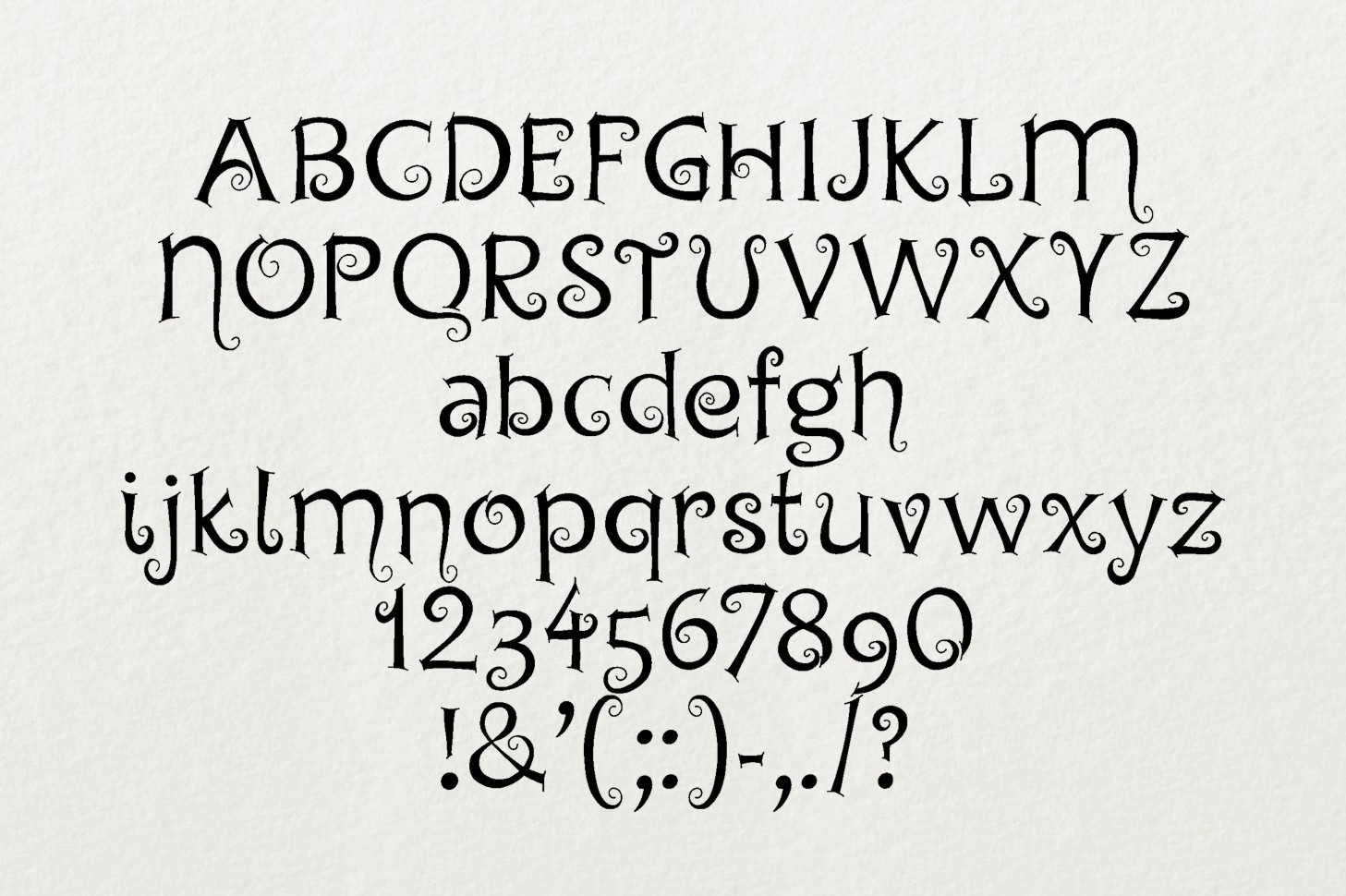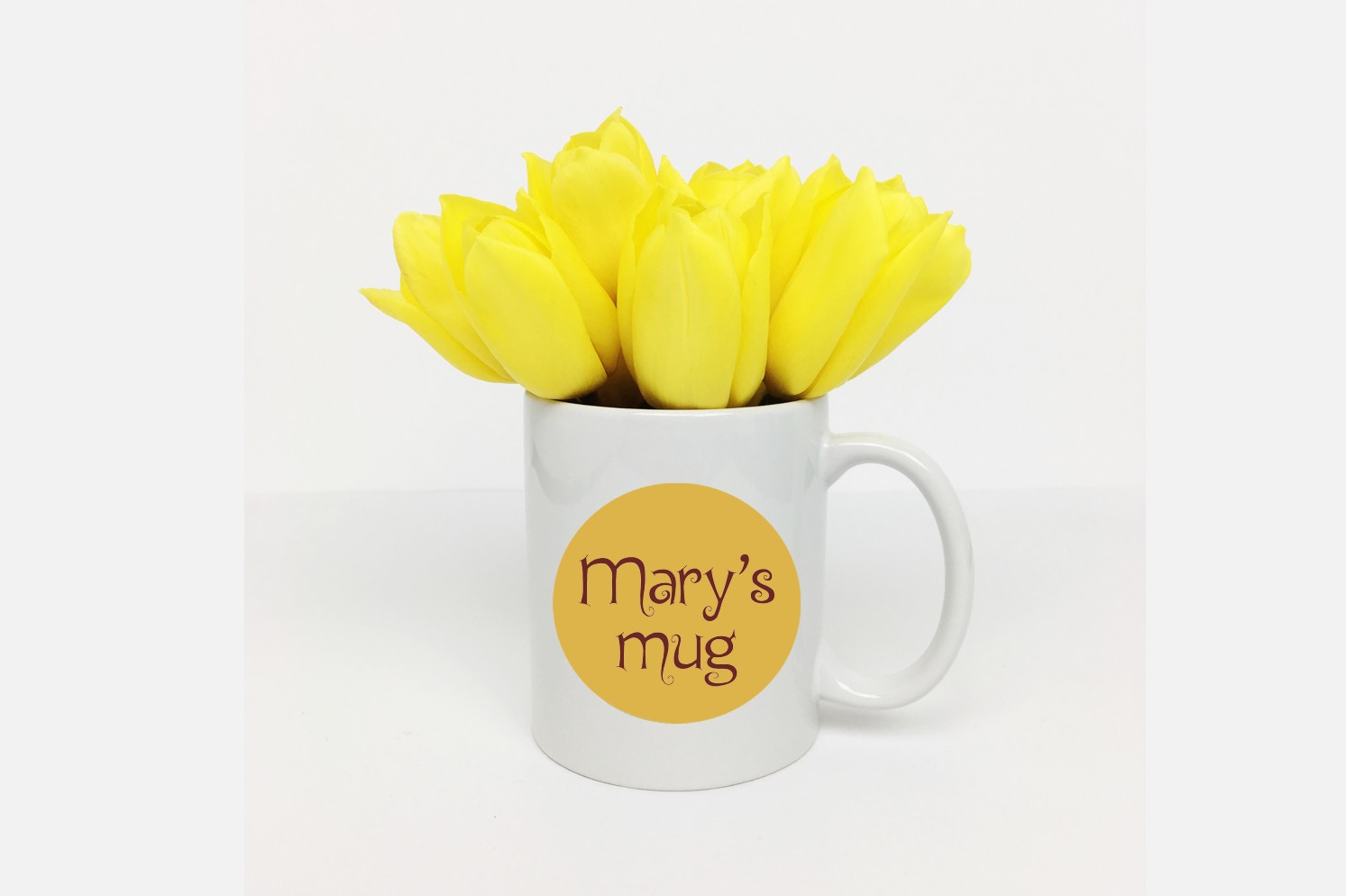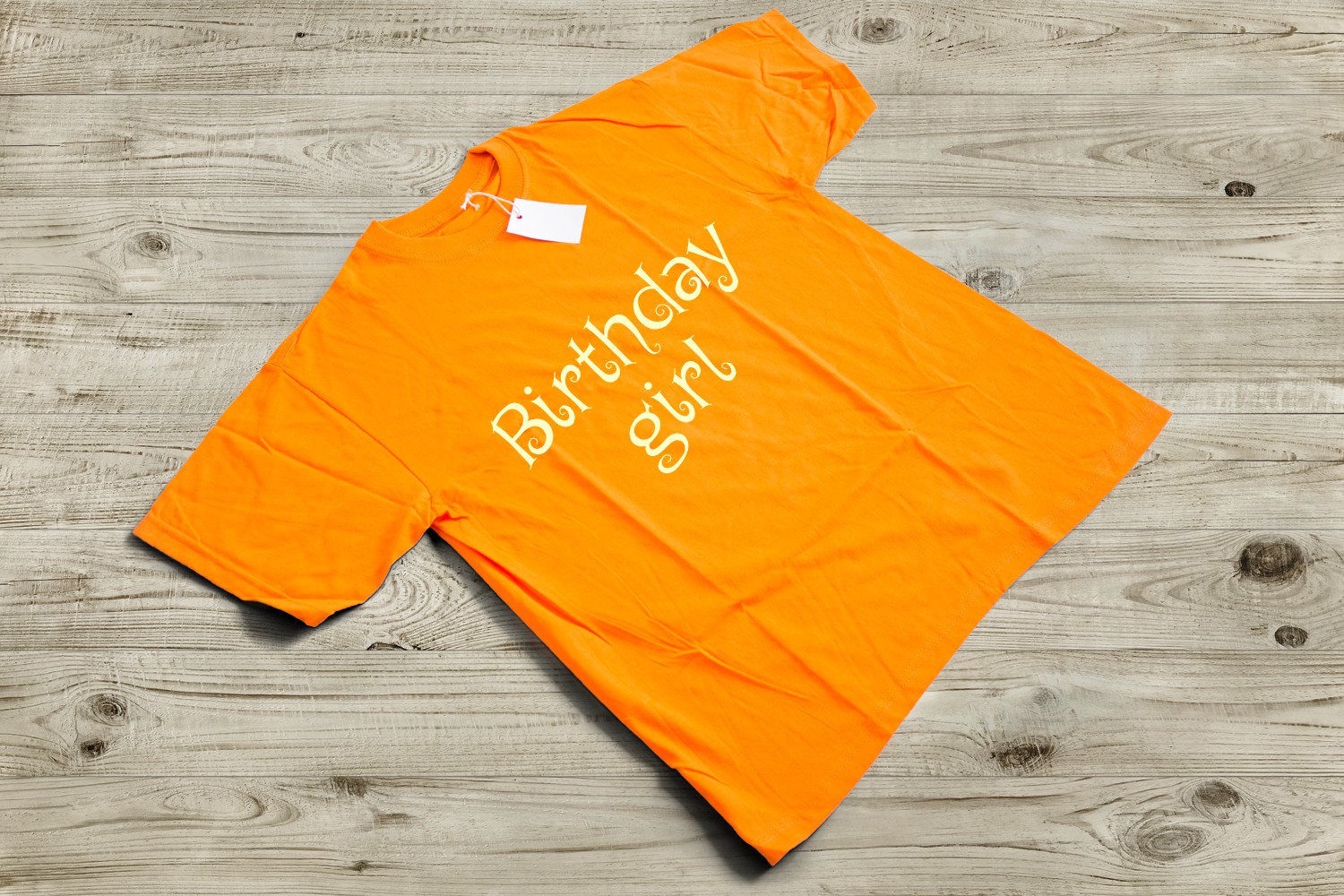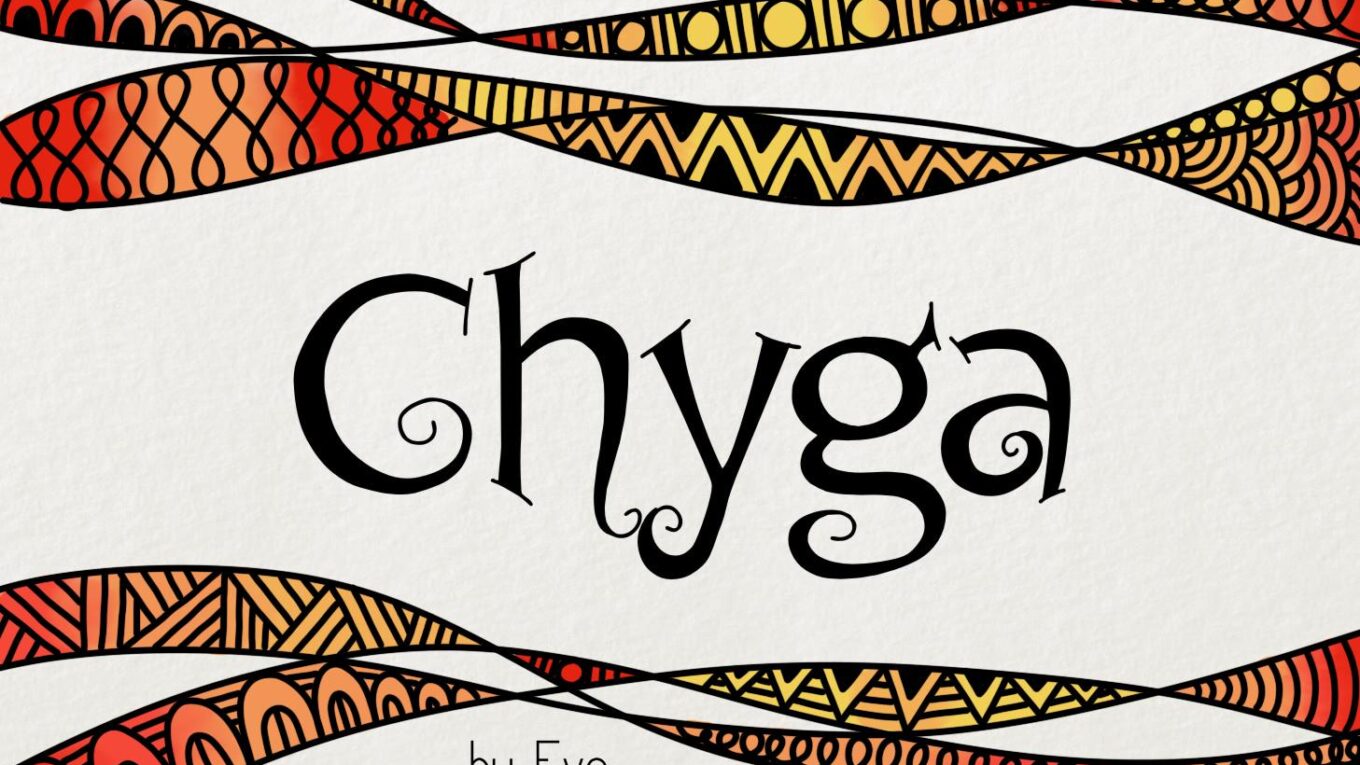
Discover the Unique Charm of Chyga Font: A Humanist Serif Wonder
In the world of typography, fonts play a crucial role in bringing designs to life. For designers and crafters, finding the perfect font that combines elegance, uniqueness, and versatility can be a daunting task. However, if you’re on the hunt for a typeface that can add a touch of sophistication and personality to your projects, look no further than Chyga Font. This humanist serif font is making waves in the design community, and for good reason.
What Makes Chyga Font Stand Out?
Chyga Font is a variable and kind-looking typeface that boasts a wonderful humanist serif design. What sets it apart from other fonts is its distinctive merged curls, which are seamlessly integrated with a classic appeal. This unique combination gives Chyga a one-of-a-kind look that can instantly elevate your designs. Whether you’re working on a branding project, a website, or a craft project, Chyga is an excellent choice.
The Power of Humanist Serif Fonts
Humanist serif fonts are known for their elegant and refined appearance. They are inspired by traditional calligraphy and are characterized by their classic, timeless look. These fonts are perfect for designs that require a touch of sophistication and luxury. Chyga Font takes this classic style and adds a modern twist with its merged curls, making it a versatile option for a wide range of designs.
The Benefits of Using Chyga Font
So, what makes Chyga Font an excellent choice for designers and crafters? Here are just a few benefits of using this wonderful typeface:
- Unique and distinctive look: Chyga’s merged curls and classic appeal make it stand out from other fonts.
- Versatile: This font is suitable for a variety of designs, from branding and websites to craft projects and more.
- Elegant and refined: Chyga’s humanist serif design gives it a sophisticated and luxurious look.
- Easy to read: The font’s clear and classic design makes it easy to read, even at small sizes.
How to Use Chyga Font in Your Designs
Chyga Font is a great handwritten option for a variety of designs. Here are a few ideas to get you started:
- Branding and logos: Use Chyga to create a unique and memorable brand identity.
- Web design: Add a touch of elegance to your website with Chyga’s refined design.
- Craft projects: Use Chyga to add a personal touch to your craft projects, such as handmade cards and invitations.
- Print design: Chyga is perfect for print designs, such as brochures, flyers, and posters.
In conclusion, Chyga Font is a wonderful humanist serif font that can add a touch of elegance and uniqueness to your designs. Its merged curls and classic appeal make it a standout typeface that is sure to impress. Whether you’re a designer or a crafter, Chyga is an excellent choice for a wide range of projects. So why not give it a try and see how it can elevate your designs?
With its versatility, elegance, and unique design, Chyga Font is sure to become a favorite in your font collection. So, go ahead and explore the possibilities of Chyga Font. Your designs will thank you!